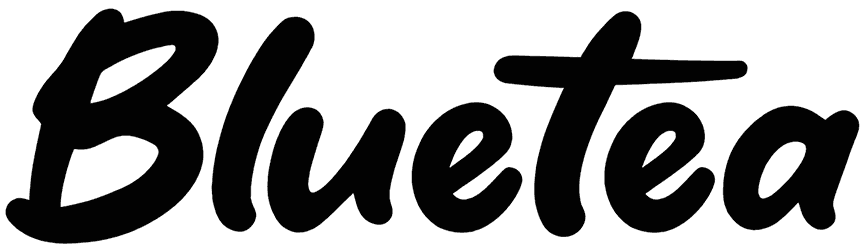
Bluetea Font
The whimsical feel of the Bluetea font makes it ideal for the titles of children’s books and animated films. This fancy font brings back feelings of childhood with its playful and flowing shape.